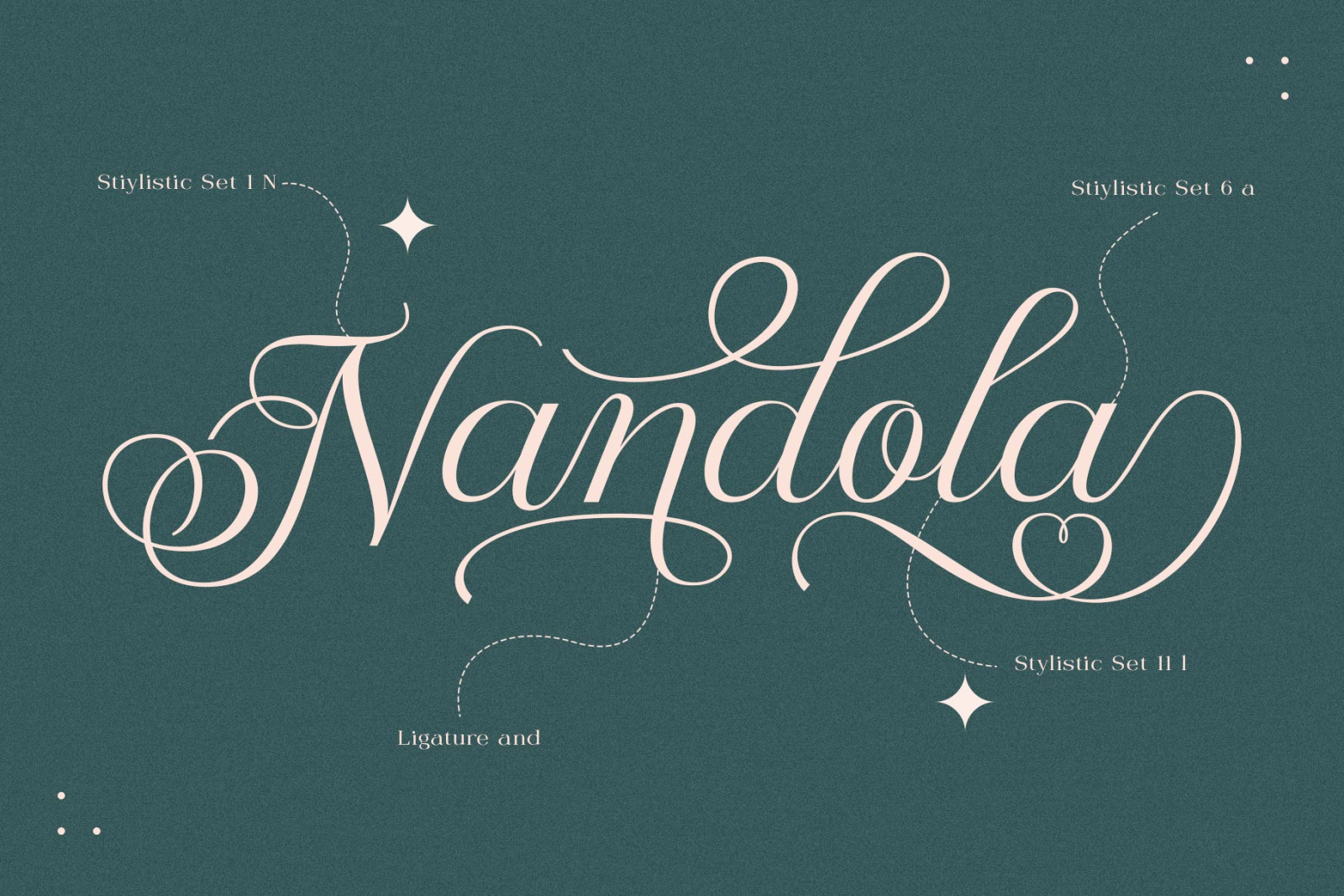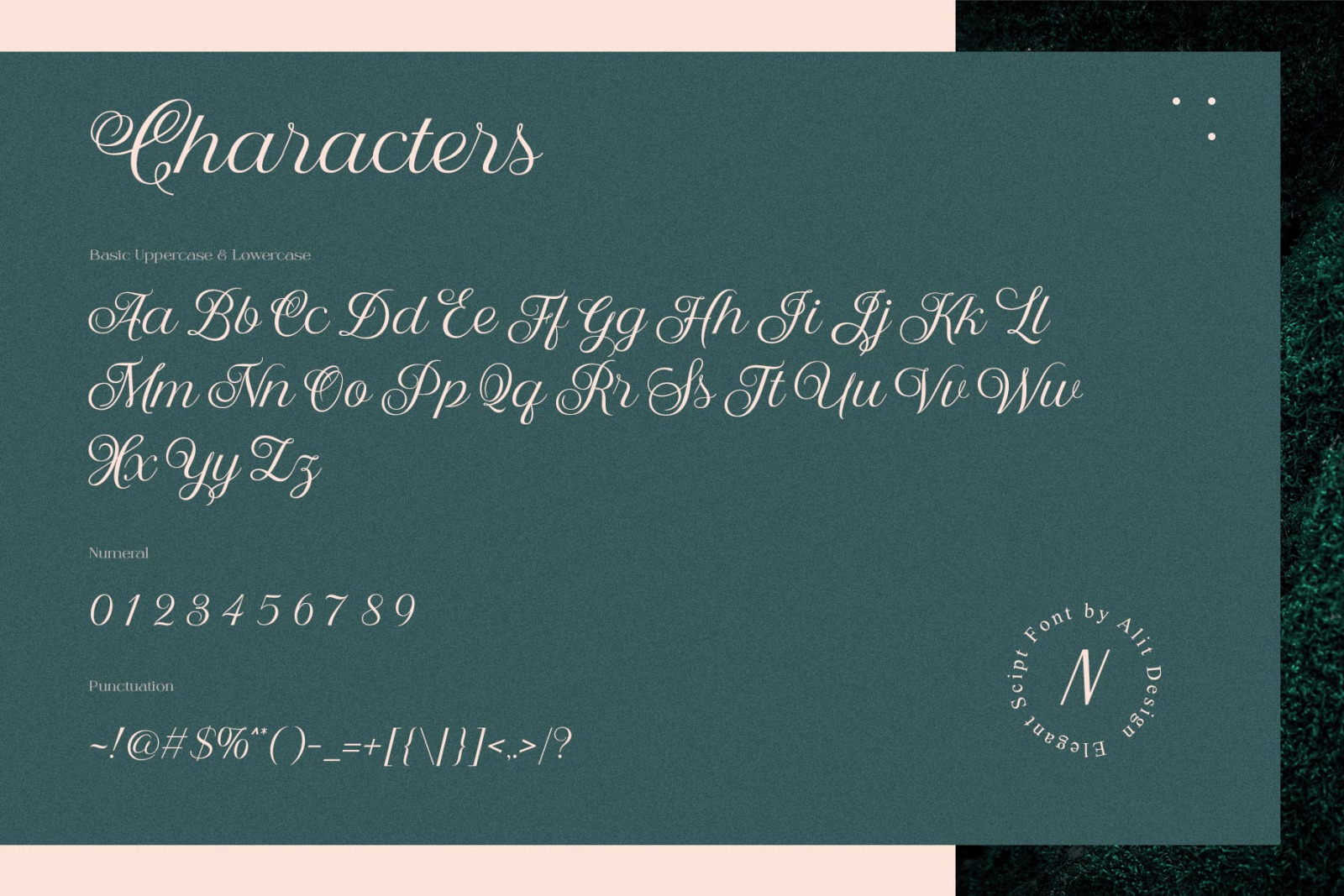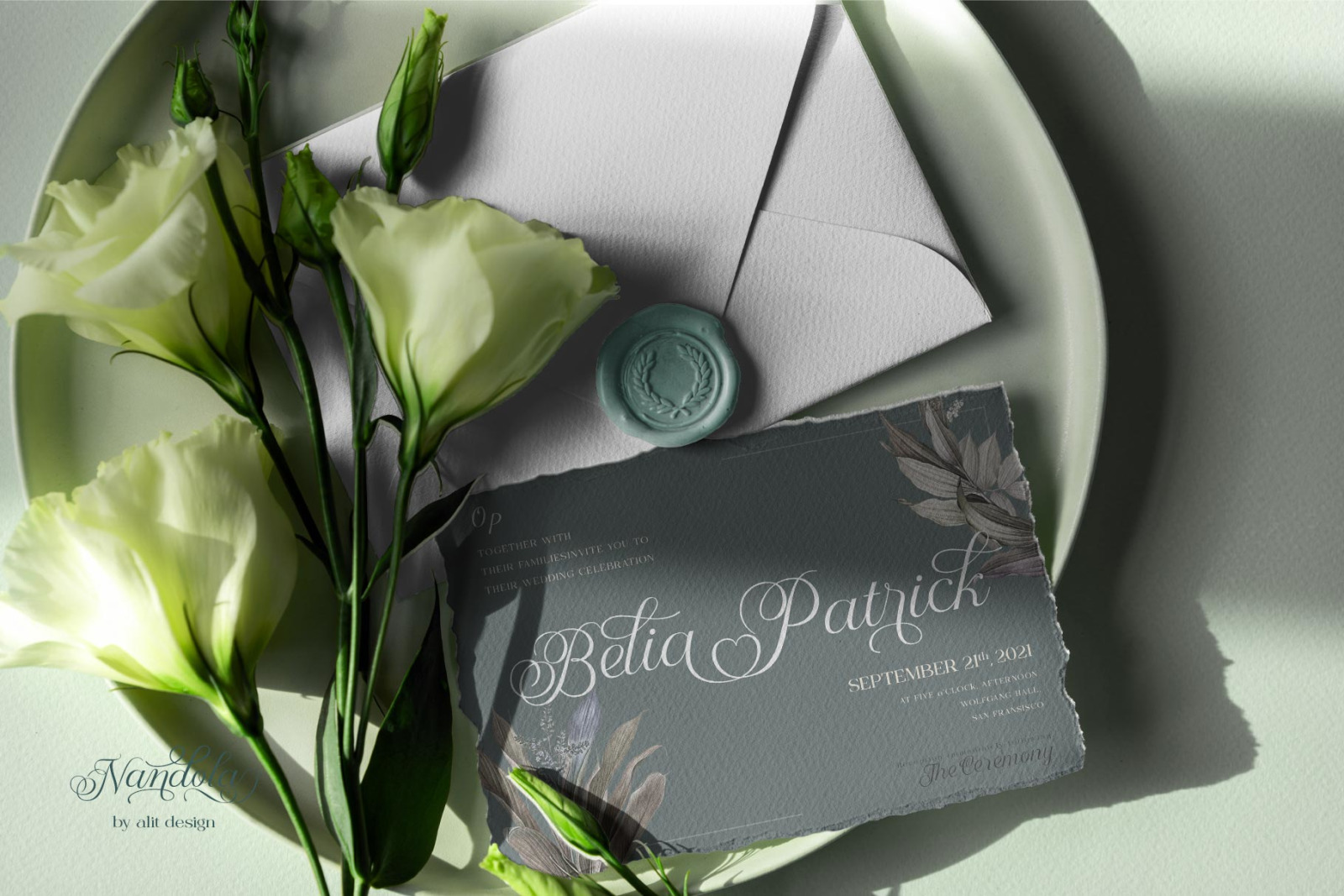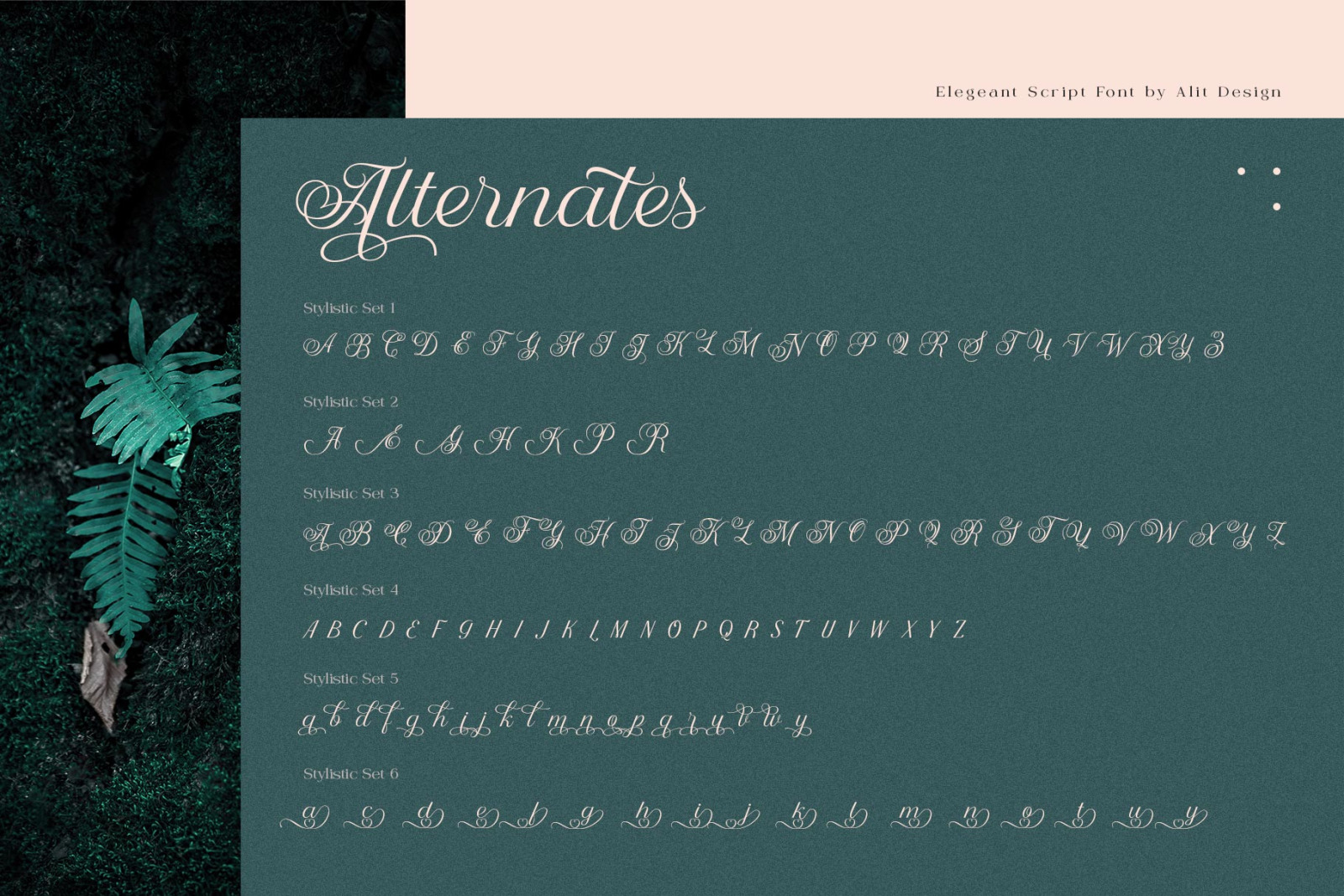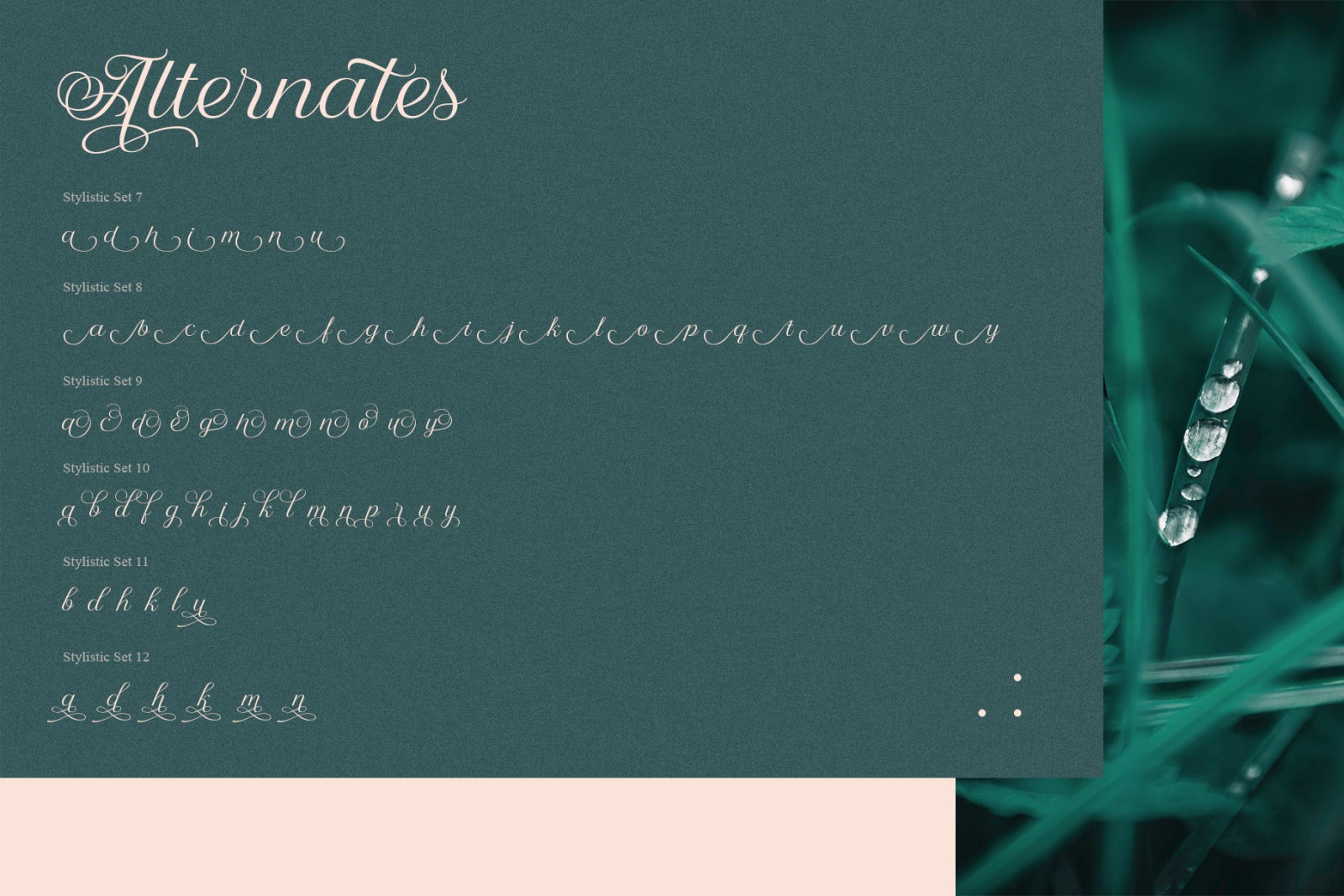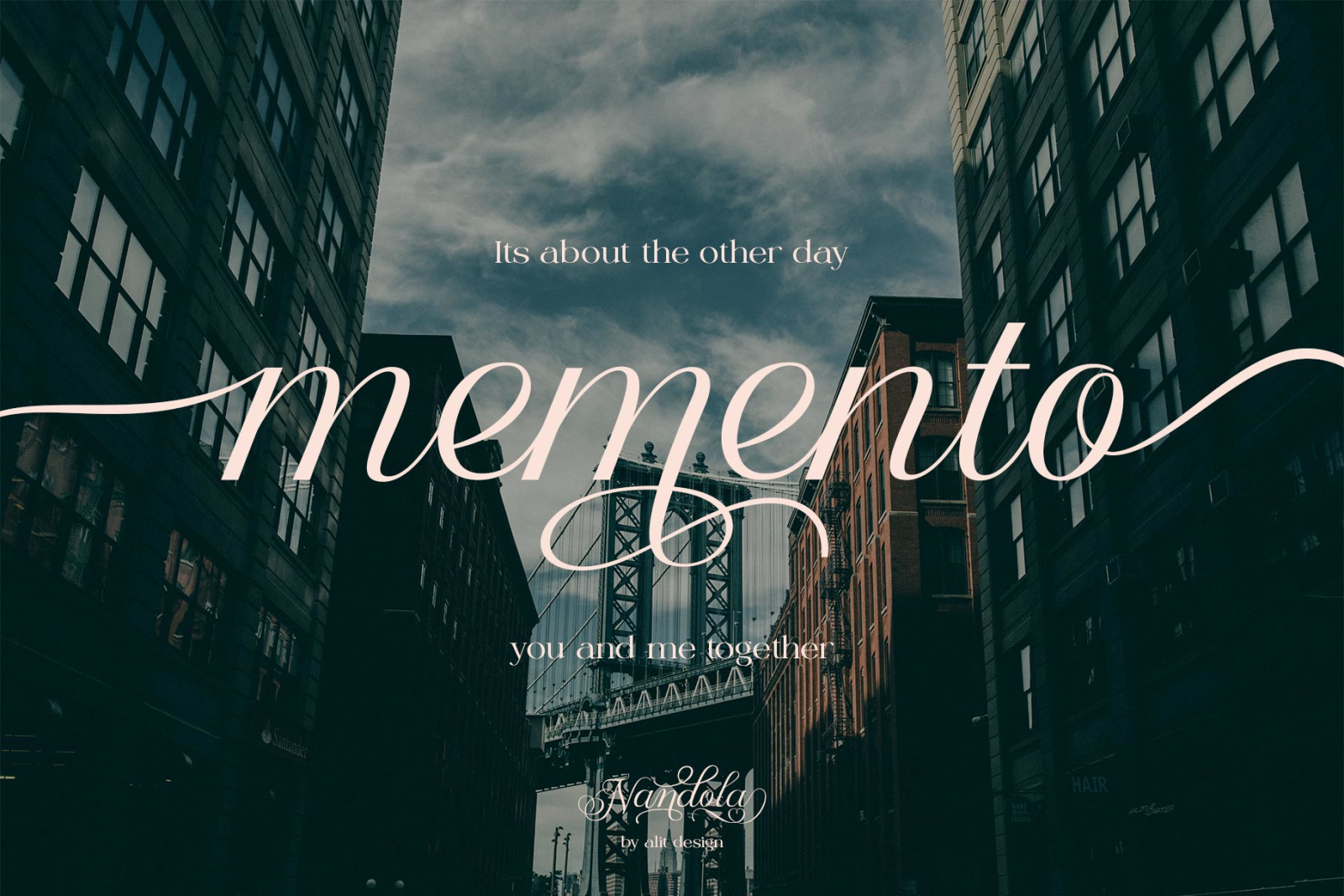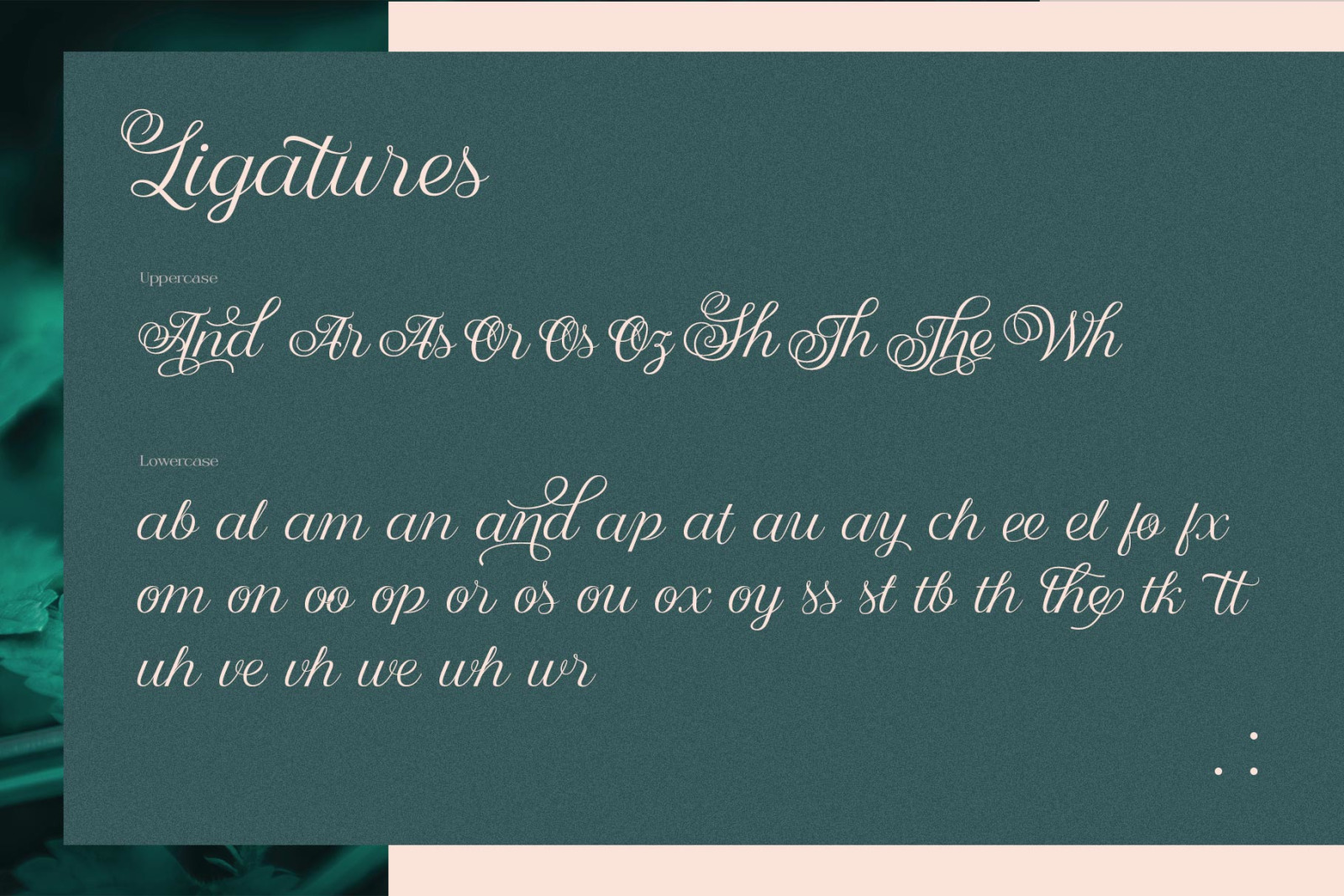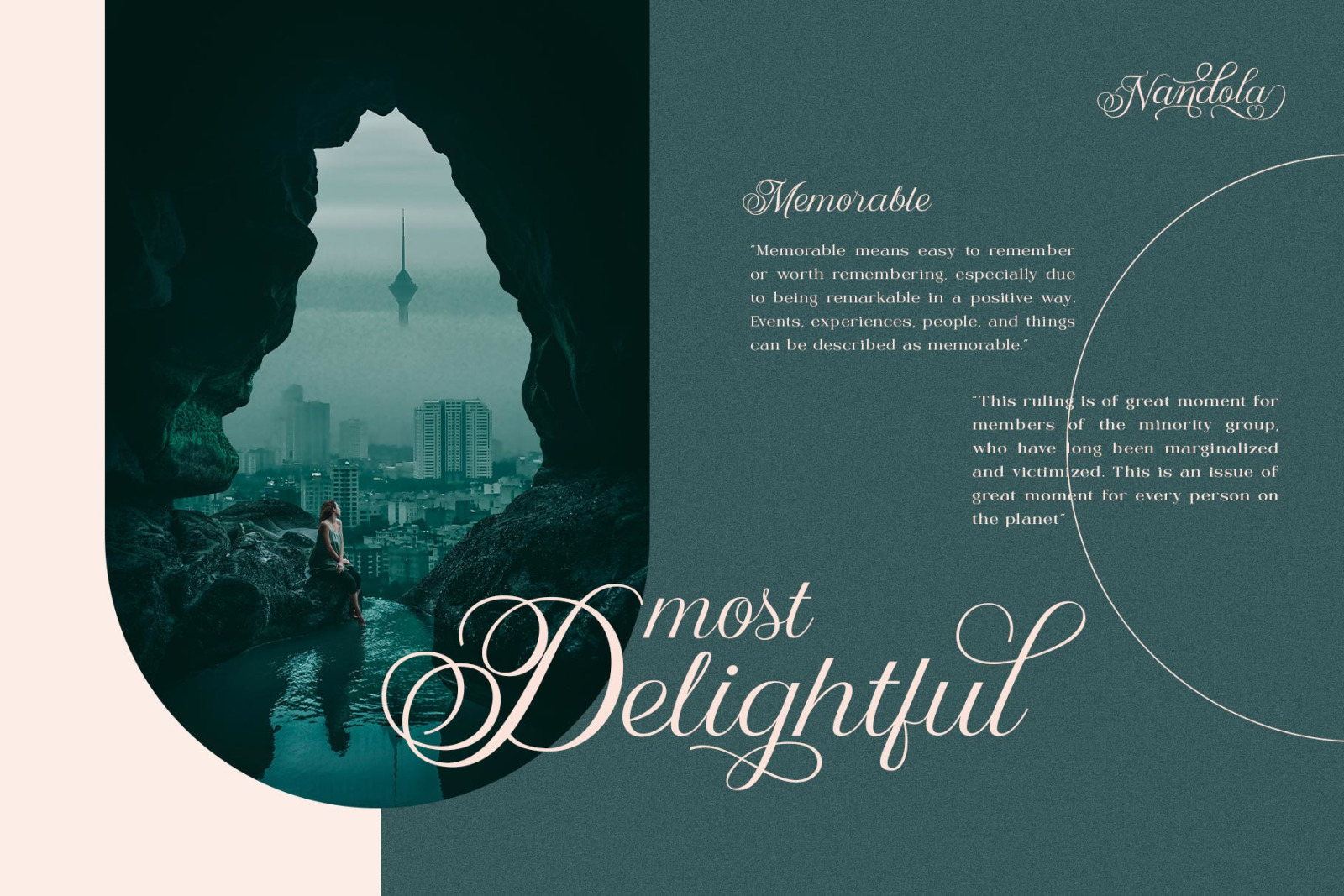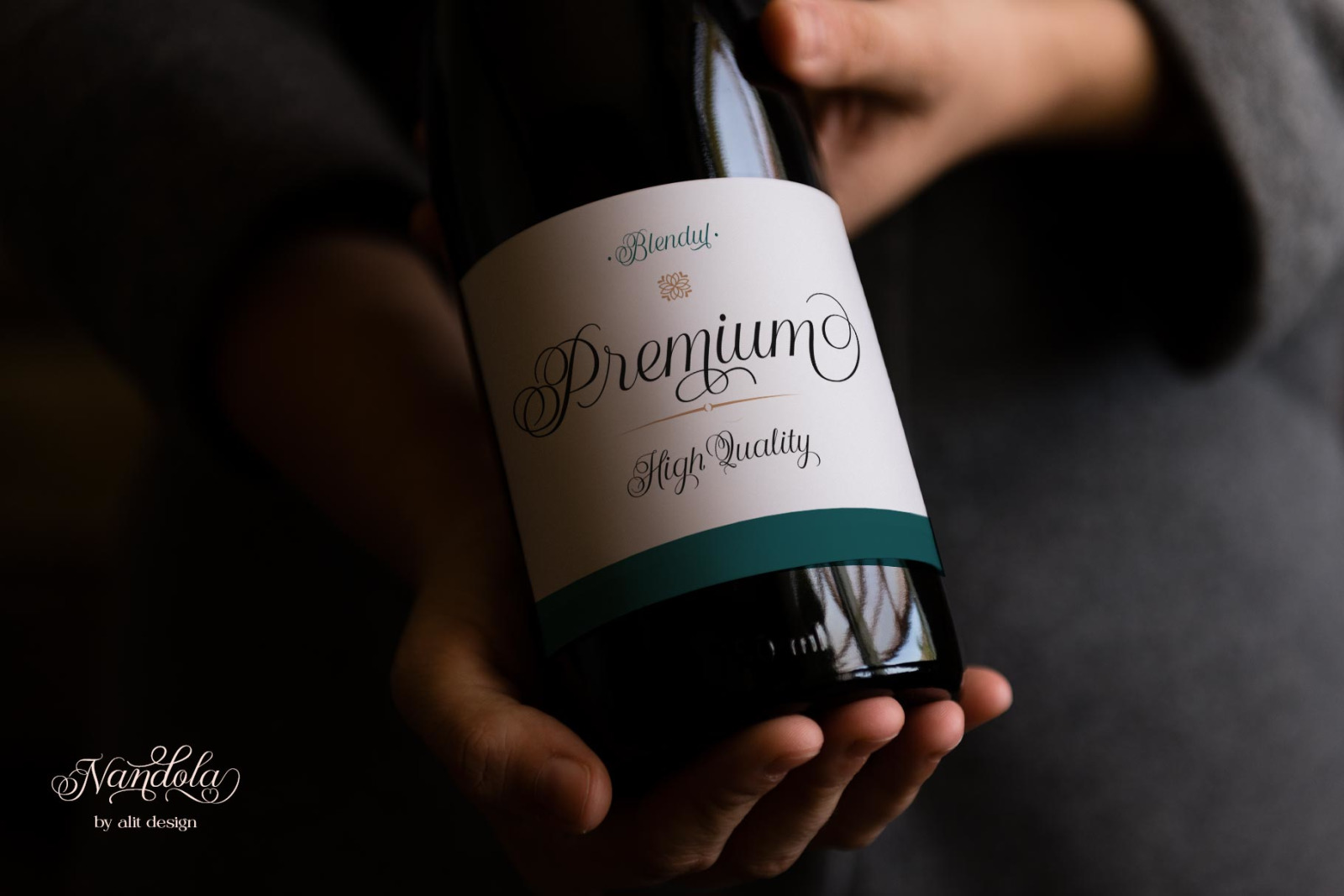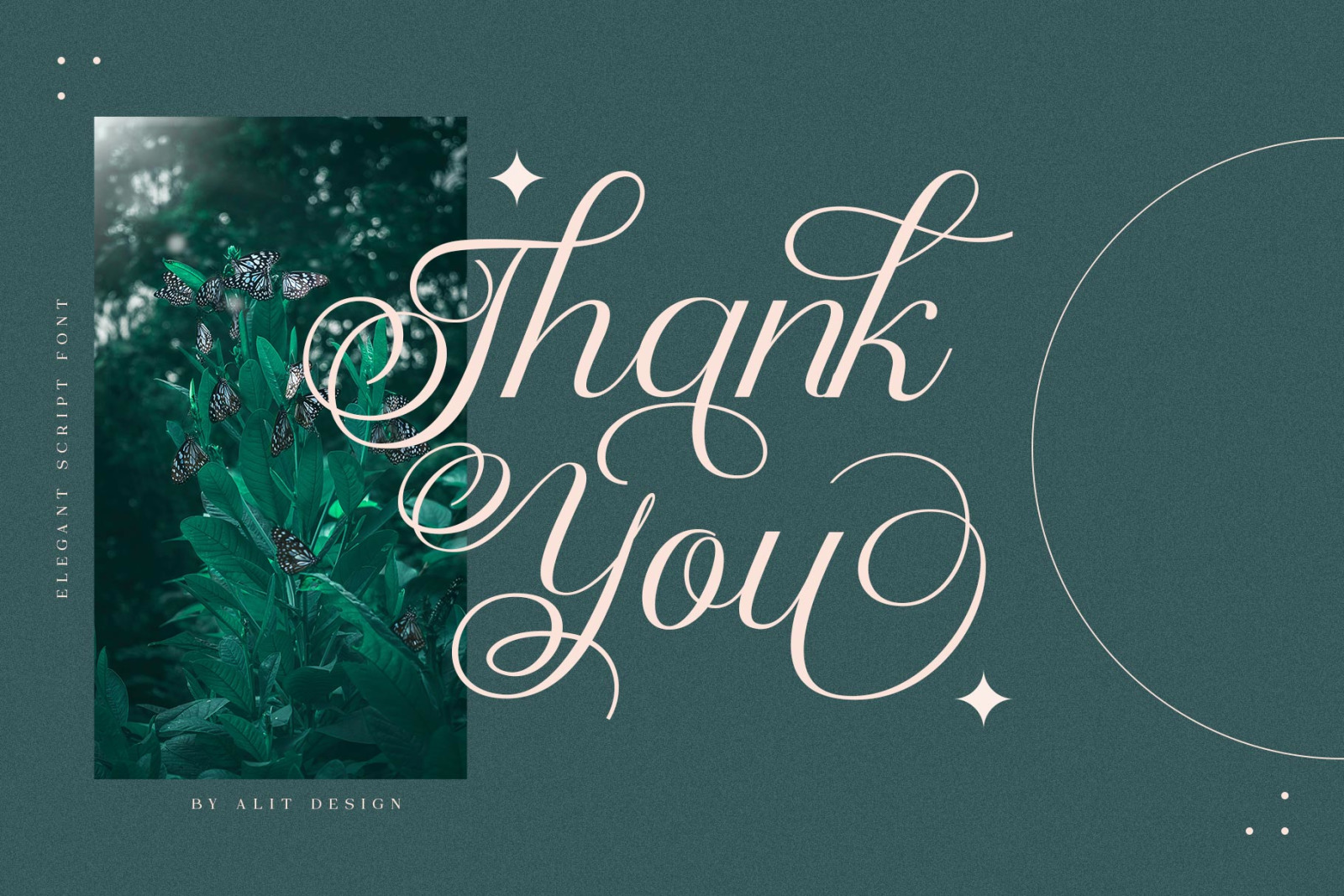
Nandola Typeface
Introducing Nandola Typeface
Nandola typeface Inspired by ancient manuscripts in the European area. Carefully designed to work together in harmony making it perfect for wedding favors, book covers, greeting cards, logos, branding, business cards and certificates, even for any design work that requires classic, formal or extravagant.
Attempt calligraphy Desired, delight in those riches from claiming OpenType features and tell its exquisite fun and fervor make you euphoric What’s more support your creativity! you might utilize this font precise undoubtedly.
Elegant script “Nandola Typeface” are very easy to apply to any design, especially those with an elegant and smooth concept, apart from that this font is very easy to use in both design and non-design programs because all alternates and glyphs are supported by Unicode (PUA).